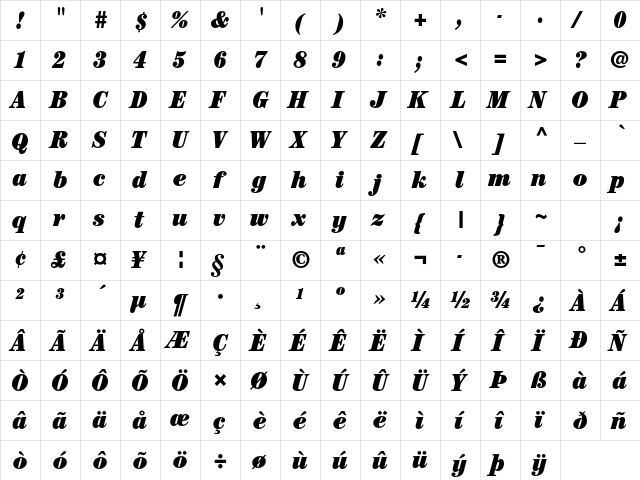
ITC Century Std Ultra Condensed Italic Font Preview
| Designer | Tony Stan |
Design Context for ITC Century Std Typeface
ITC Century Std takes a measured approach to typography — its balanced proportions and neutral character make it a reliable workhorse for both digital and print work. The dynamic lean of this cut emphasises speed and emphasis in any layout. The condensed width makes it efficient for tight spaces without sacrificing legibility.
Pro Tip: Try ITC Century Std for annotation and caption copy alongside an upright companion — the contrast in angle creates a dynamic but ordered typographic system.